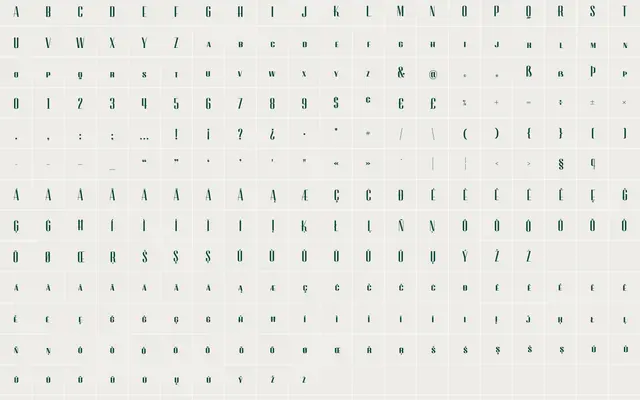
Silencio Sans
Jessica Hische · 2014
A single-weight display sans drawn from silent film title credits, originally made for a Creative Artists Agency Hollywood-themed party invitation in 2014.
Commissioned for a CAA Friday Night Party invitation with an old Hollywood theme, the typeface takes its name from the silent film era and draws its forms from movie title credits of that period. Despite its origins, it reads equally well in magazines, invitations and premium packaging. Jessica Hische describes it as a supporting-role face, well suited to pairing with custom lettering or another display face rather than carrying a layout alone.
Designed for a Hollywood-themed invitation with inspiration drawn from silent film title credits, Silencio Sans is a display-oriented sans with a decorative, period-inflected character rather than a workhorse text face.